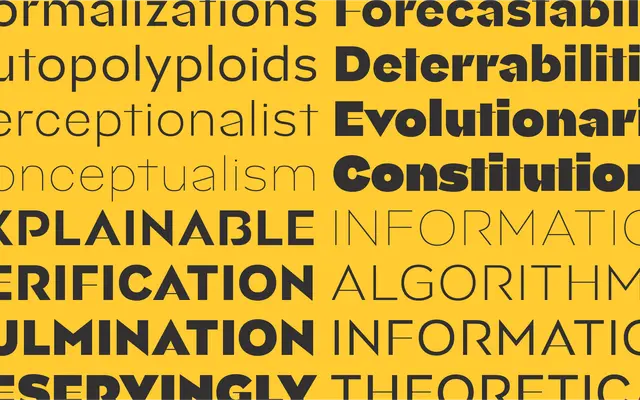
Aligne
Leinster Type · Troy Leinster · 2023
A geometric sans by Troy Leinster that derives its contrast from the shapes of letterforms rather than from calligraphic pen models.
Ten weights run from a near-zero Hairline to an extreme-contrast Ultra, with the heaviest cuts distributing thin strokes through the interior so letters appear assembled from discrete parts. The contrast logic is neither translation nor expansion but something the designer calls shape-relational, making it unusual among display geometric sans families. Available as a variable font with stylistic alternates including a simplified 'a' and 'g', stovepipe 't', and capital punctuation, it is positioned for fashion, editorial, packaging and identity work.
Explicitly described as a geometric sans; the contrast system departs from both translation and expansion models, deriving relationships from letterform shapes rather than calligraphic stroke logic.